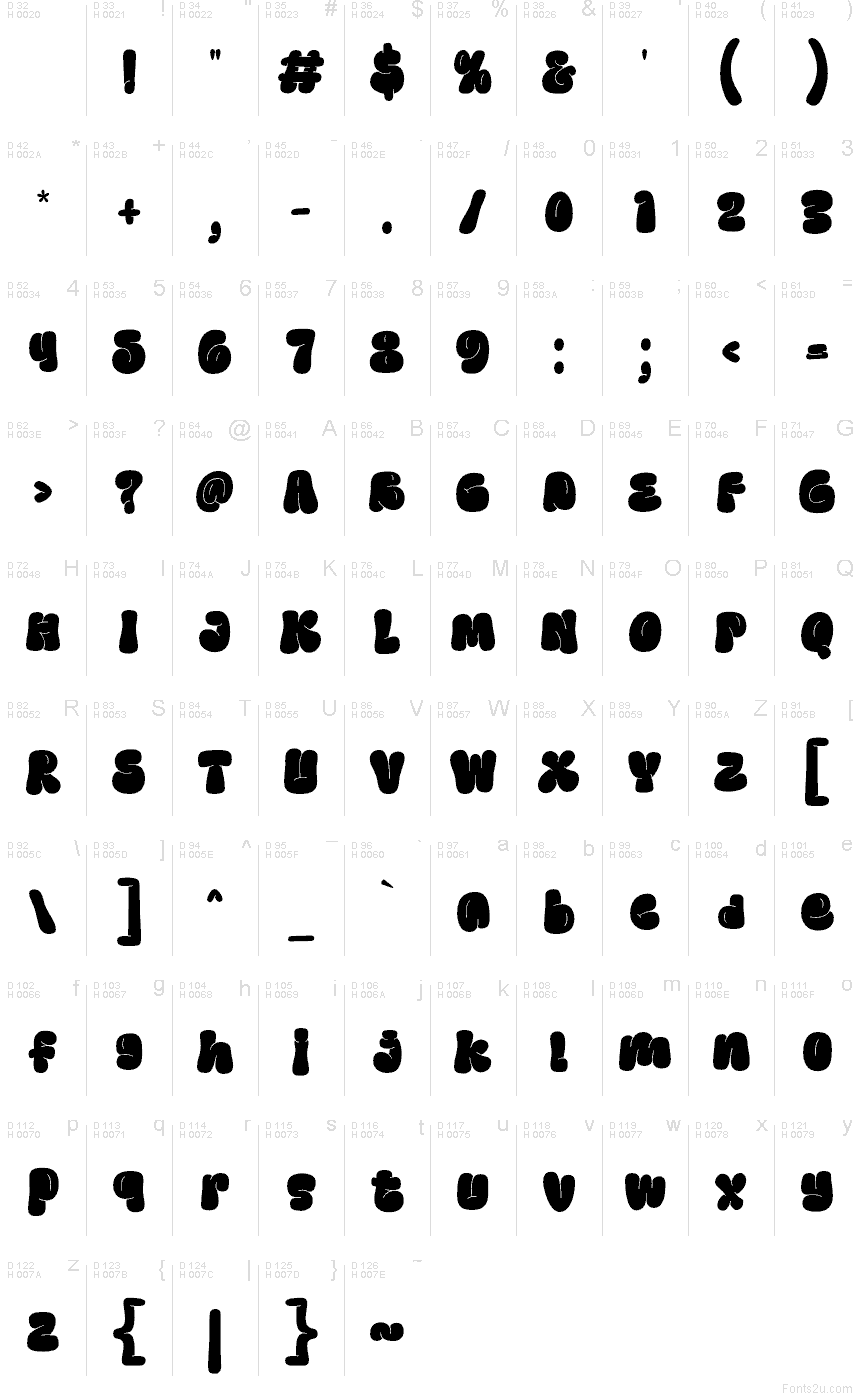
Stuinwey Display font by Typetemp Studio is a free graffiti display typeface with fat, inky letters that look like they’ve just been sprayed onto a wall. The forms are soft, blobby, and tightly packed, creating a heavy, almost foamy texture that instantly grabs attention. Rounded corners and exaggerated curves give it a playful, street-art vibe rather than a harsh, edgy one, so it feels bold but still friendly and approachable.
Using Stuinwey Display, you can inject that bubbly graffiti energy into posters, merch, party flyers, kids’ event branding, YouTube thumbnails, and playful logo experiments. This free font shines at large sizes where its chunky silhouettes can really spill across the layout. Pair it with a clean, thin sans serif for small body text to keep things readable while letting Stuinwey carry the attitude.
Stuinwey Display